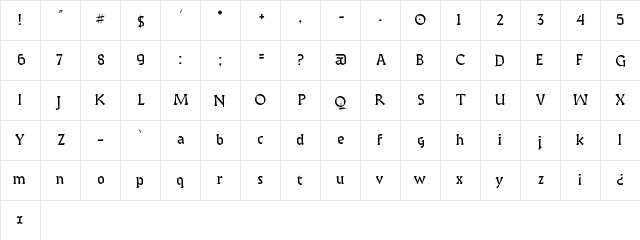
fs Kronos Regular
| Designer | William Leverette |
Design Context for fs Kronos Typeface
fs Kronos offers clean, dependable letterforms without strong stylistic allegiance, making it a practical choice for designers who need flexibility.